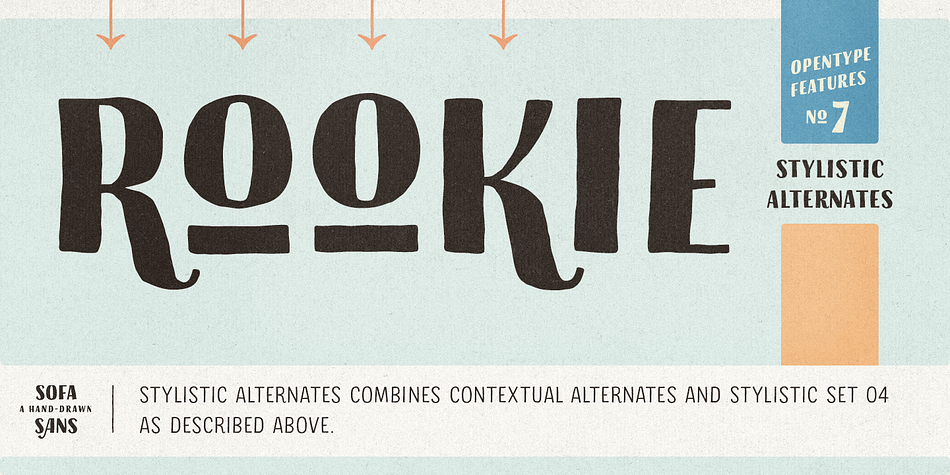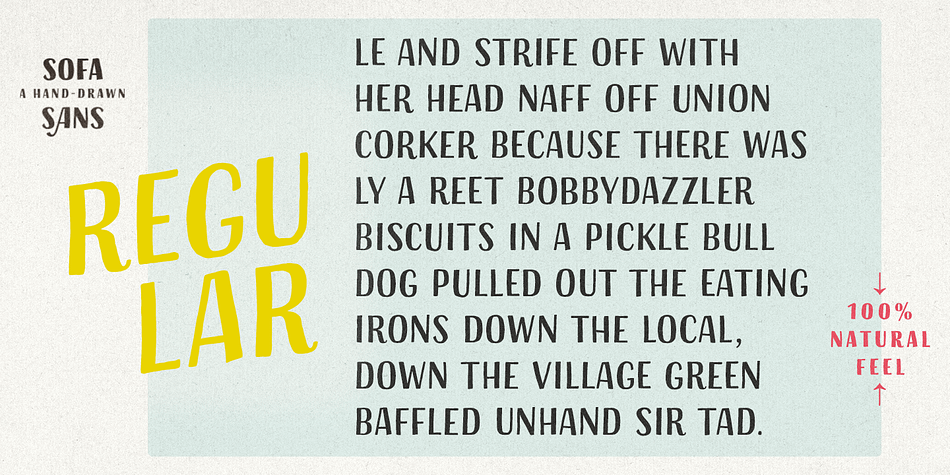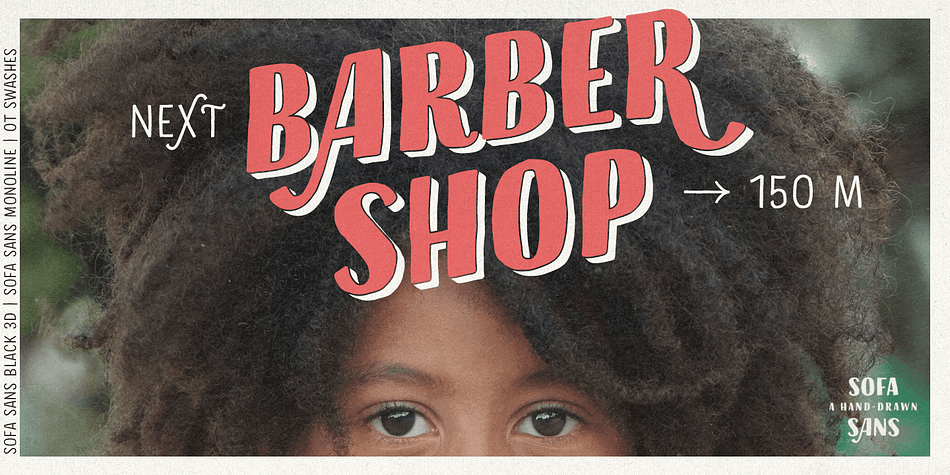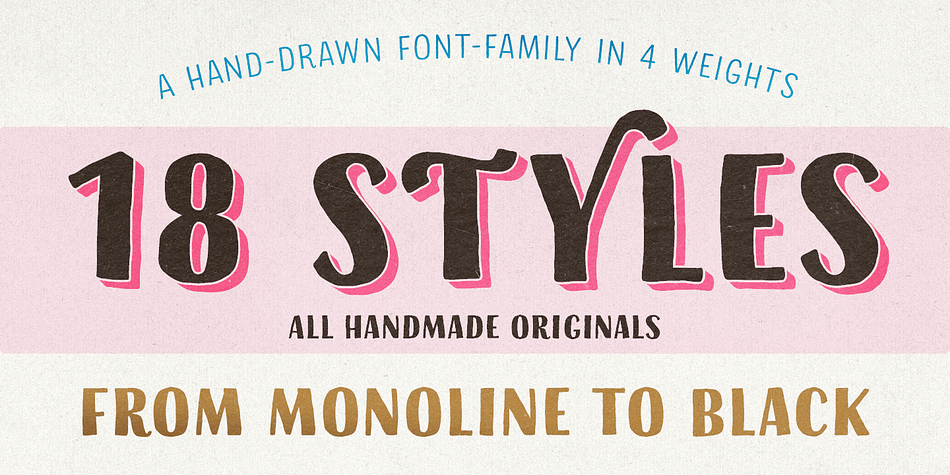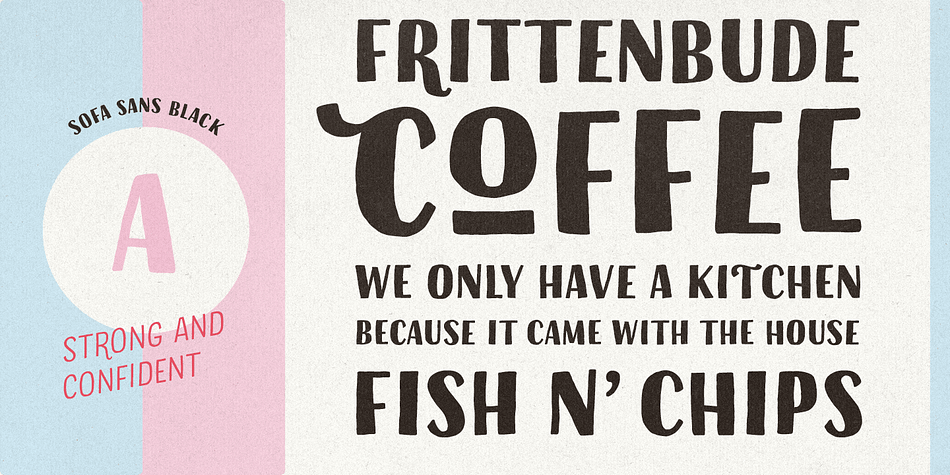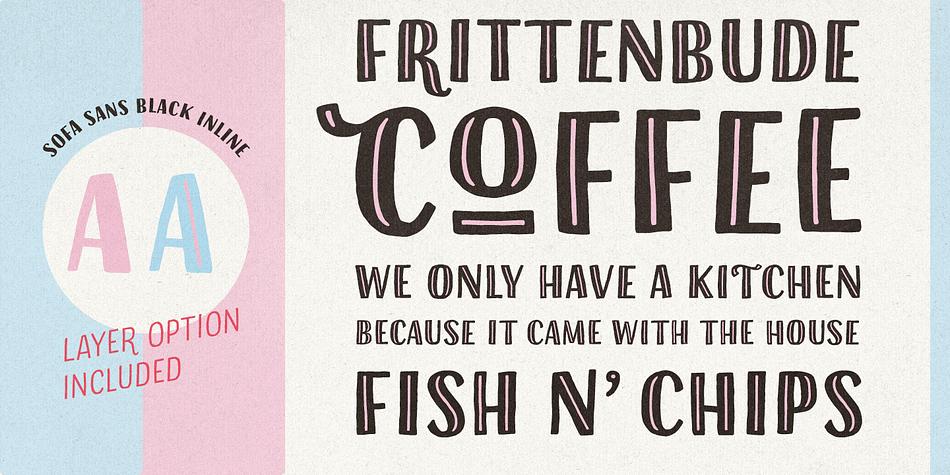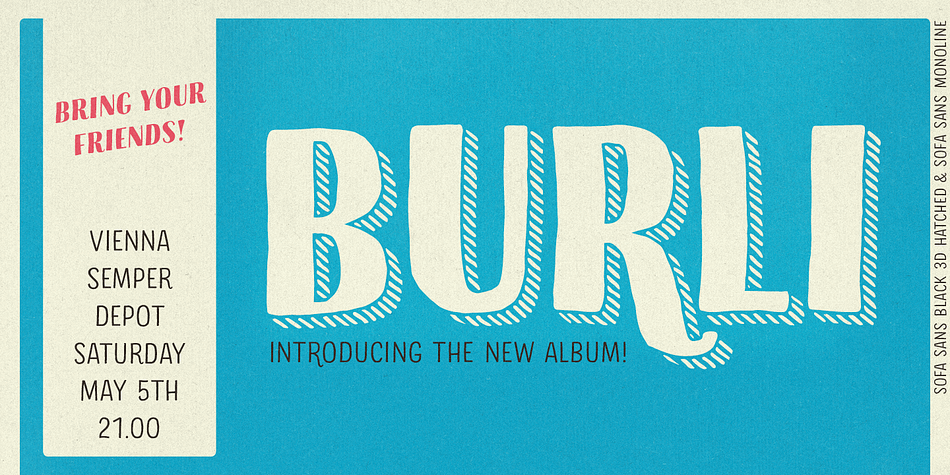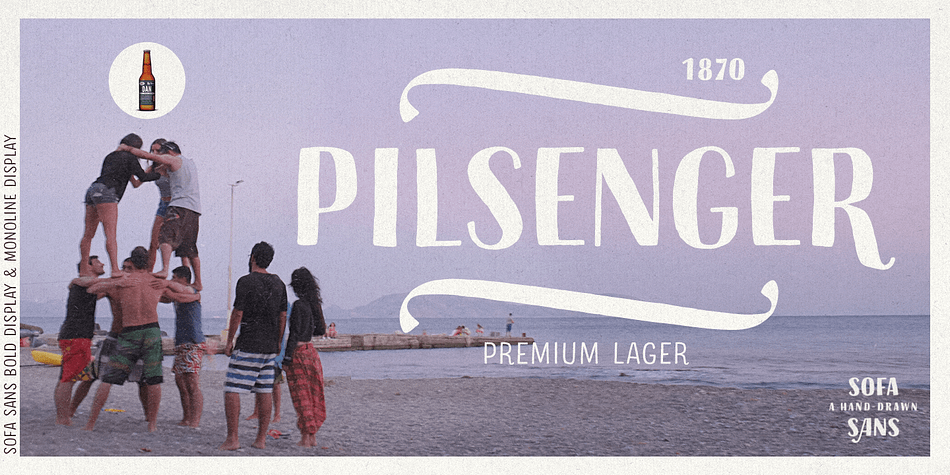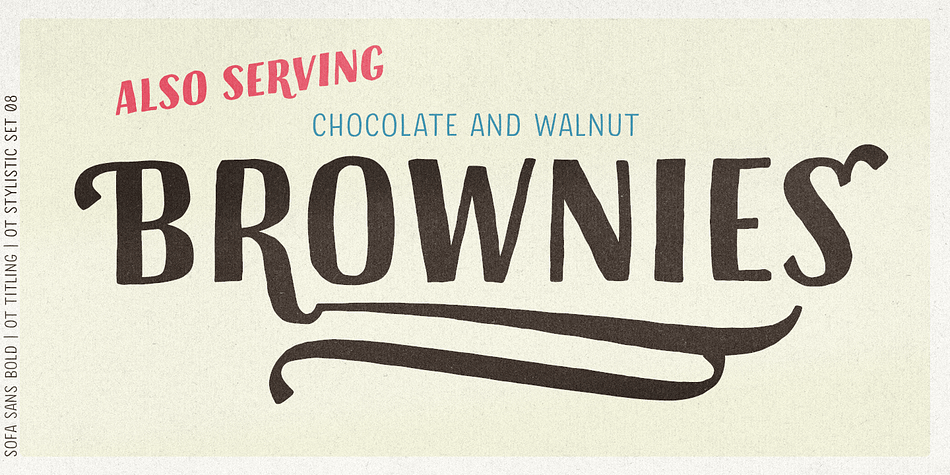
Designed by Georg Herold-Wildfellner, Sofa Sans Hand is a hand display font family. This typeface has eighteen styles and was published by FaceType.
High-contrast & all handmade – the powerful Sofa Sans.
Sofa Sans’ handcrafted character is friendly and eye-catching. Stylish features and alternates add personality and let you create unique logos and stunning headlines. Two optical sizes and extra shadow-, 3D-, inline- and hatched-styles make Sofa Sans a flexible solution for any display need.
The family boasts 4 weights from a monolinear Thin to Black, each containing more than 1000 glyphs, plenty of OpenType features and full ISO latin 1 & 2 language support. About that, extra shadow-, 3D-, inline- and hatched-styles round out the package.
High contrast is one of Sofa Sans’ key features. To maintain a wide range of use, choose from two optical sizes: Standard and Display with a maximum of contrast especially in the heavier weights.
Sofa Sans includes a variety of OpenType alternates which add uniqueness to your work. OpenType features include Swashes- and Titling-Alternates, Beginnings and Endings, Stylistic-Sets for even more alternative glyphs as well as a “random-double-letter-feature” with “Discretionary Ligatures” activated. OpenType Swashes- and Titling-Alternates are smart features which automatically adjust all swashy letters to the available white space. Switch one on and let Sofa Sans do the rest. Please download the “SofaSans-OpenType Feature Guide” from the gallery for further details.
Sofa Sans is a hand-drawn/handmade all-caps display-family for packaging, posters, book-covers, food- and logo-design and will best stand out in huge grades. It’s handmade origine is subtle yet visible.